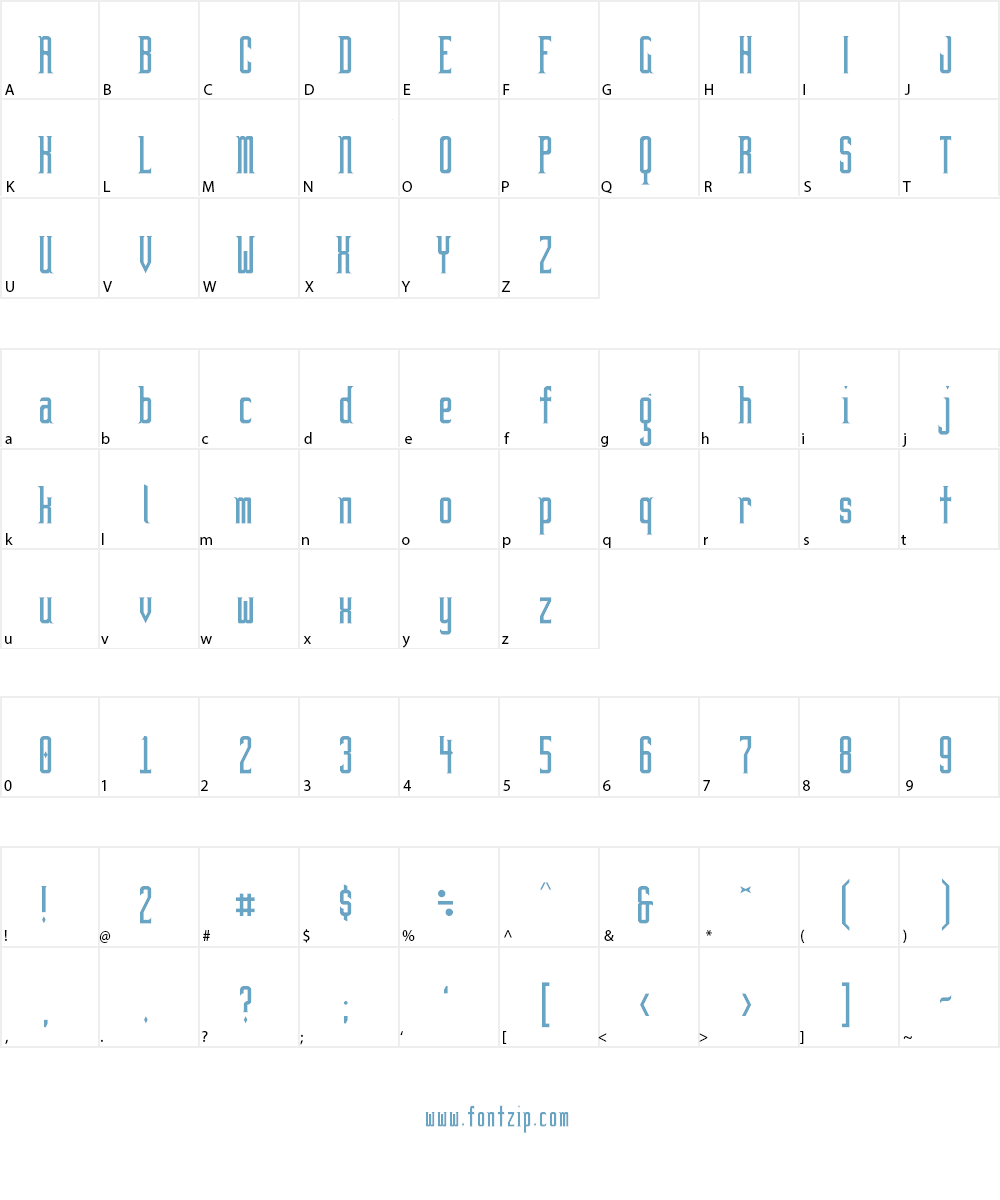
Based on Brighton NBP, a narrow art deco-like design. BrightonTwo comes in 6 variations: Sans, Serif, Slab Serif, Square, SmallCaps, and Gothika. At the moment, BrightonTwo only has capital letters in Cyrillic and Greek.
"...an excellent headline font for print, web, mobile and packaging."
--DesignFollow.com
"...a beautiful font style that enables you to quickly give a geometric, Art Deco, Gothic look to any text string."
--Softpedia.com